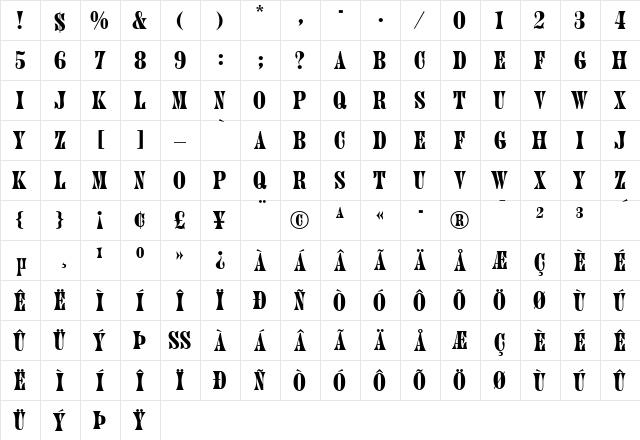
Juniper Regular Font Preview
Juniper Regular
Design Context for Juniper Typeface
Juniper is a composed and adaptable typeface that performs quietly and consistently across a wide range of design contexts.